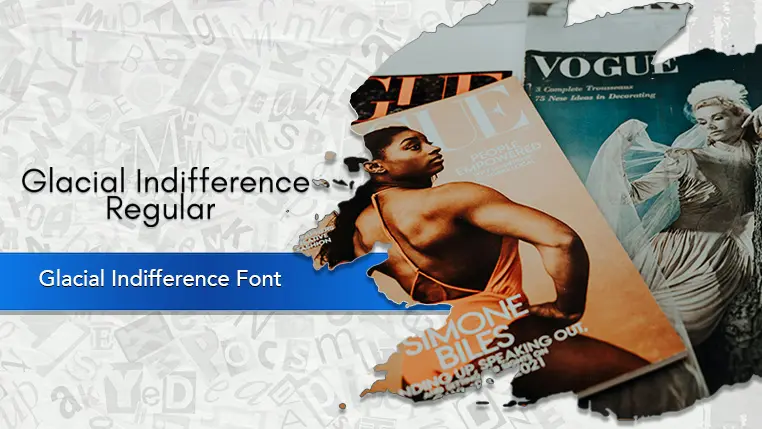
The Glacial Indifference font family may be ideal for you if you enjoy working on an artistic design project. The lively, expressive look of this typeface, which was created by Hanken Design Co., makes it ideal for Websites and User Interfaces. Its simplicity and modern look work well for creating a clean and professional brand identity. It is often used in magazines, reports, and other publications for both headlines and body text, as it's easy to read in long-form content. It is a go-to font for projects that require a clean and uncluttered look, such as a minimalist portfolio, a product label, or a simple poster. and other light-hearted visual projects.
Regular, Bold are the two primary font styles of the Glacial Indifference font family. You may build dynamic, visually appealing text layouts with the distinct flair that each style offers. With crisp, readable lines and a relaxed tone.